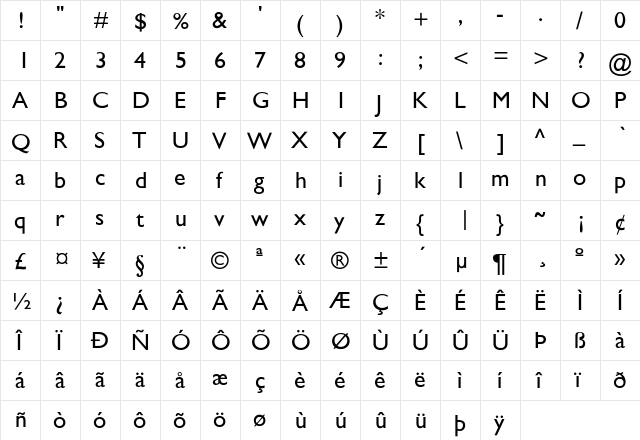
GarrisonSans-Medium Regular Font Preview
GarrisonSans-Medium Regular
Design Context for GarrisonSans-Medium Typeface
GarrisonSans-Medium is a composed and adaptable typeface that performs quietly and consistently across a wide range of design contexts.